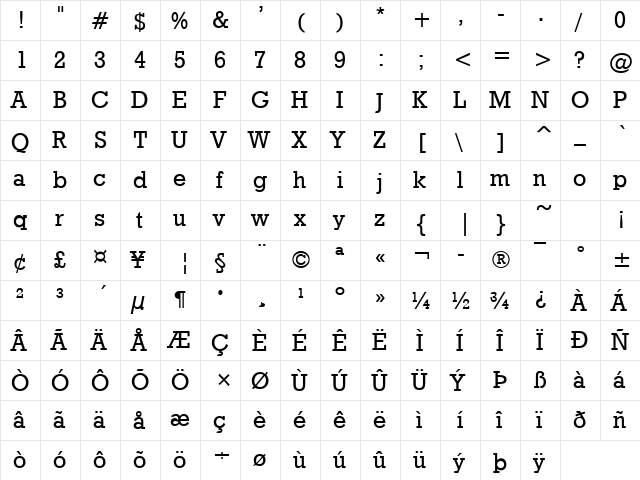
Rockland Regular
Design Context for Rockland Typeface
Rockland takes a measured approach to typography — its balanced proportions and neutral character make it a reliable workhorse for both digital and print work.